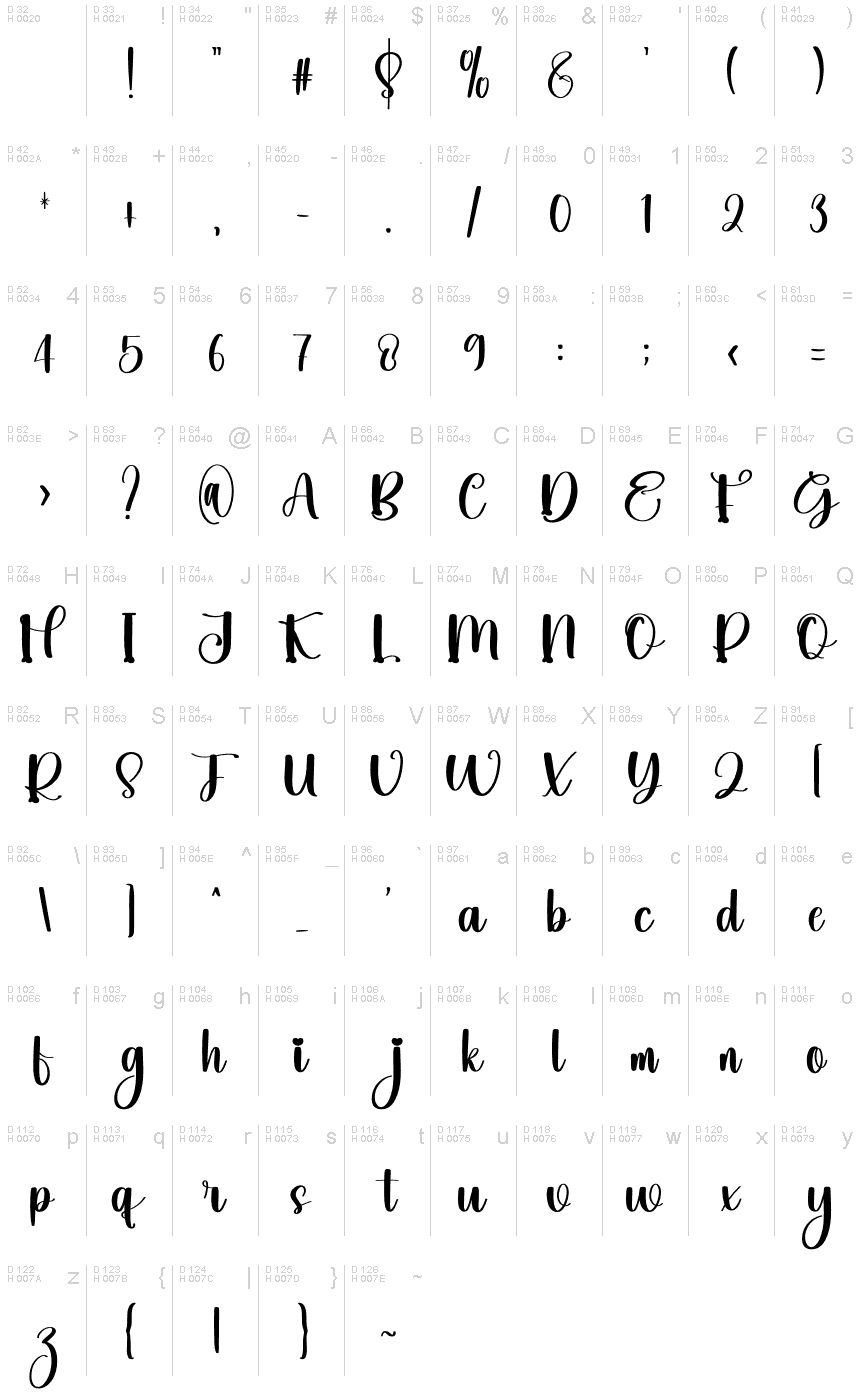
Sunday
Sunday, a lovely handwritten font by Harlek Studio, exudes charm and elegance.
Its graceful curves and whimsical strokes make it perfect for wedding invitations, love letters, and romantic greeting cards. The semi-bold font is versatile enough to work well in both digital and print projects, adding a touch of warmth to blog titles, social media graphics, and book covers. Sunday's narrow width lends itself beautifully to fashion magazines, showcasing the latest trends with a refined flair.
Let this enchanting typeface bring your designs to life with its timeless beauty.